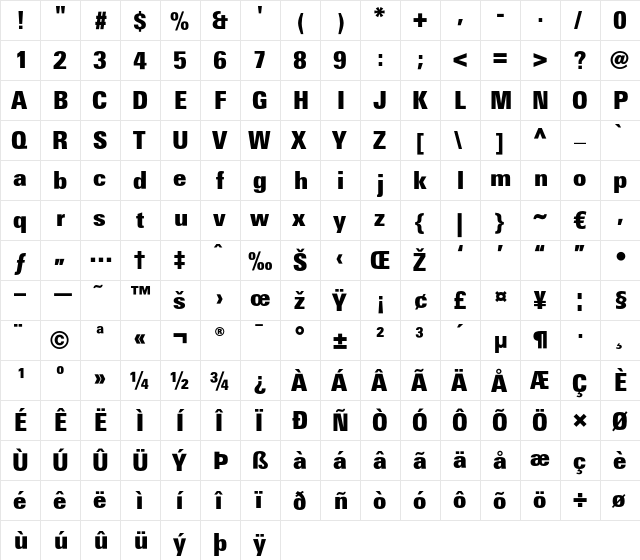
LTUnivers 920 CondXBlack
Design Context for LTUnivers Typeface
LTUnivers takes a measured approach to typography — its balanced proportions and neutral character make it a reliable workhorse for both digital and print work. The condensed width makes it efficient for tight spaces without sacrificing legibility.